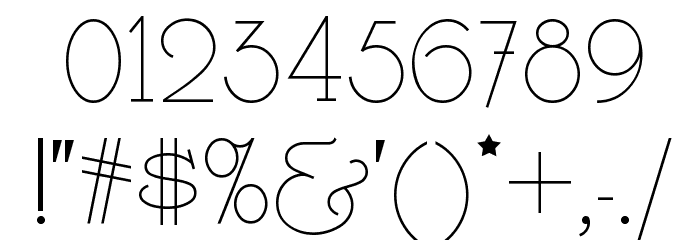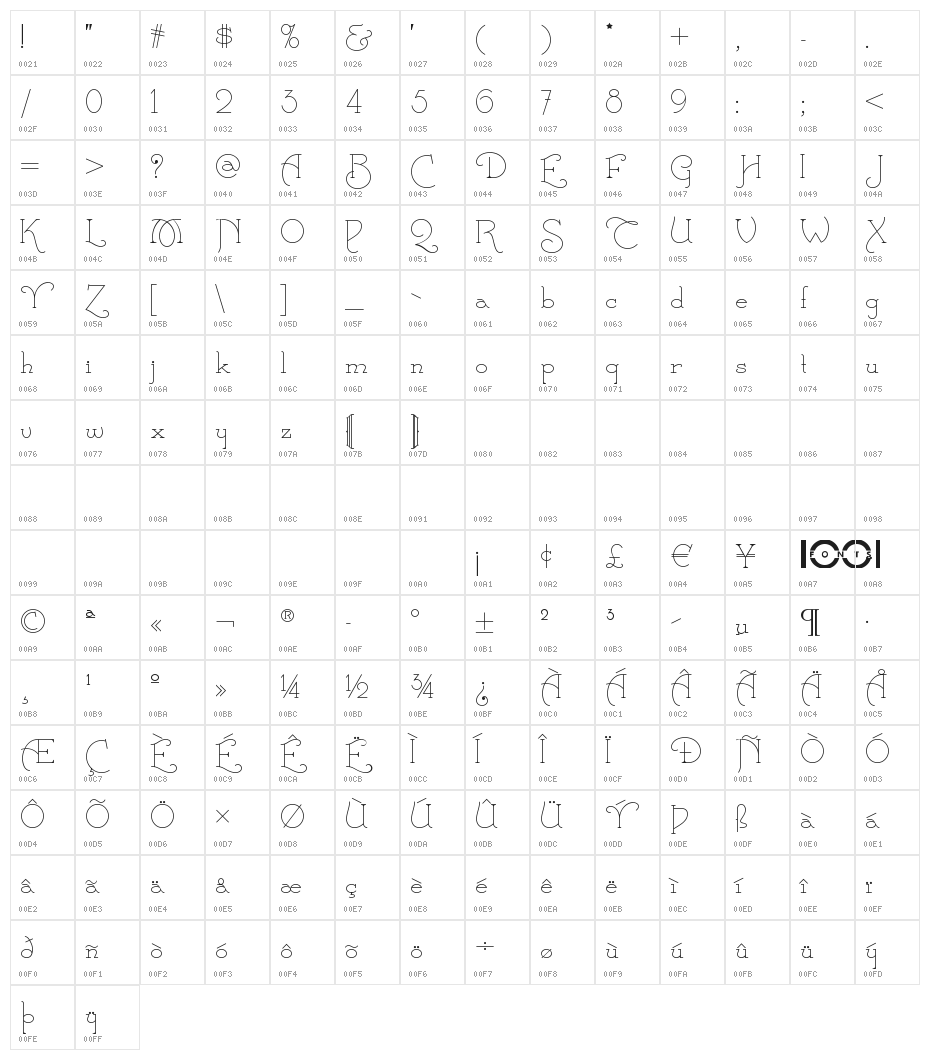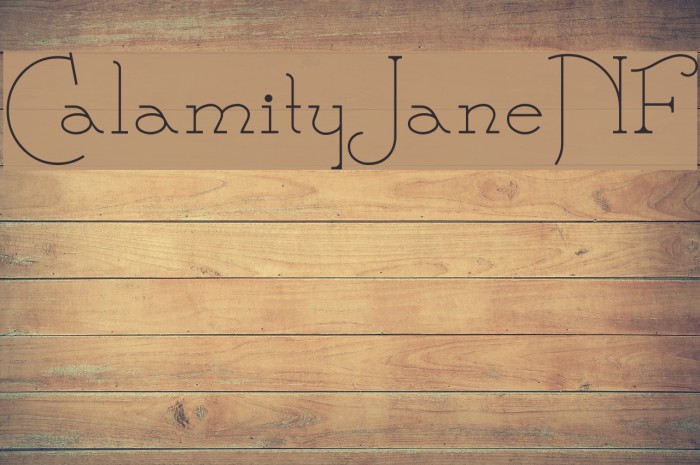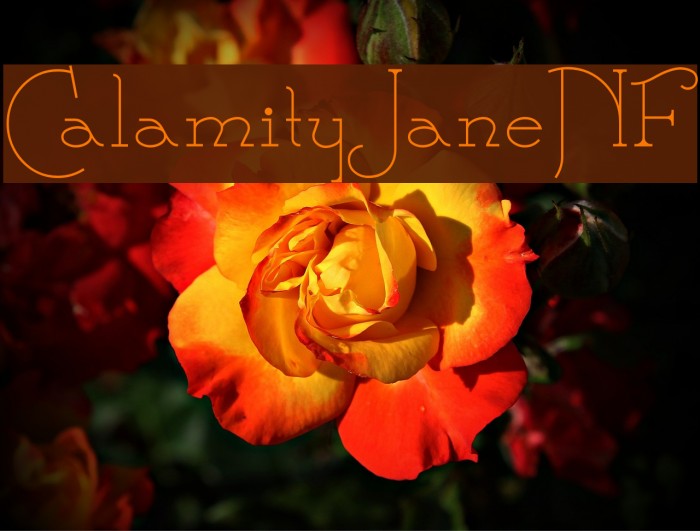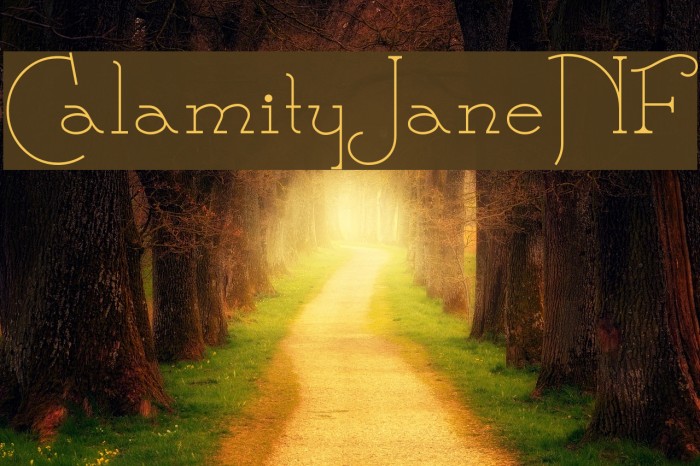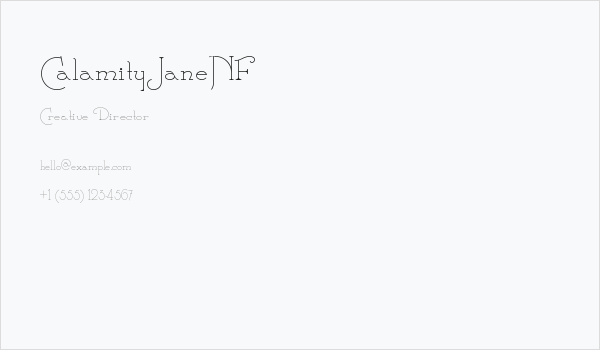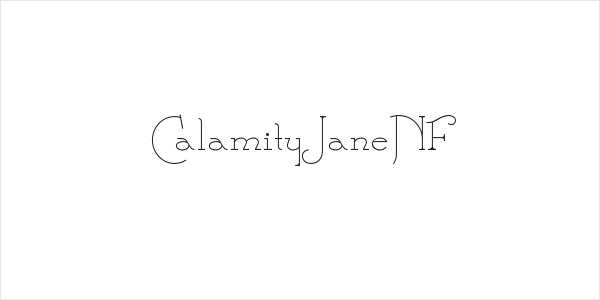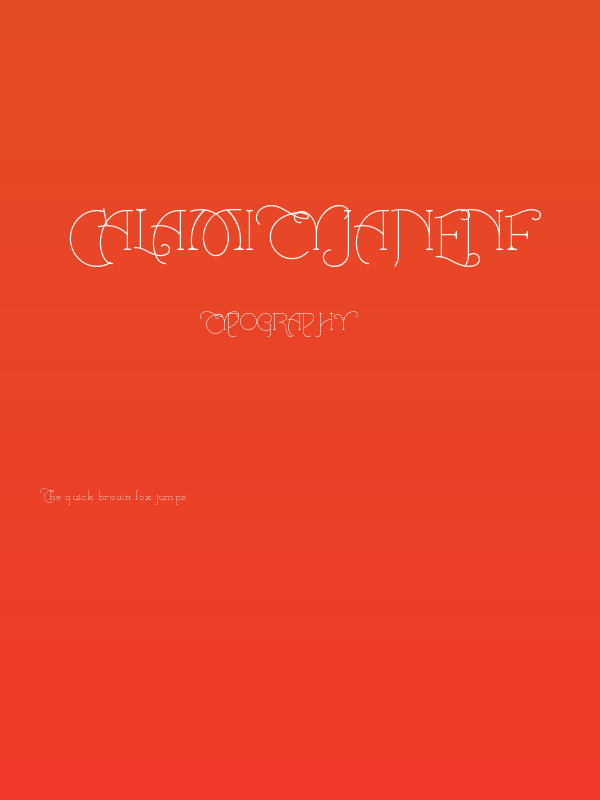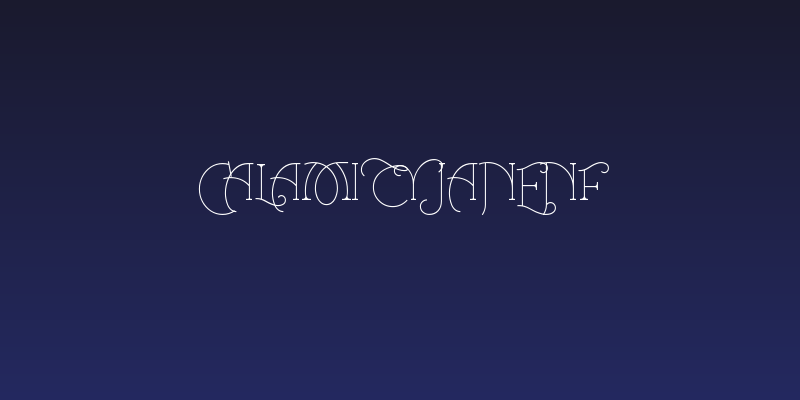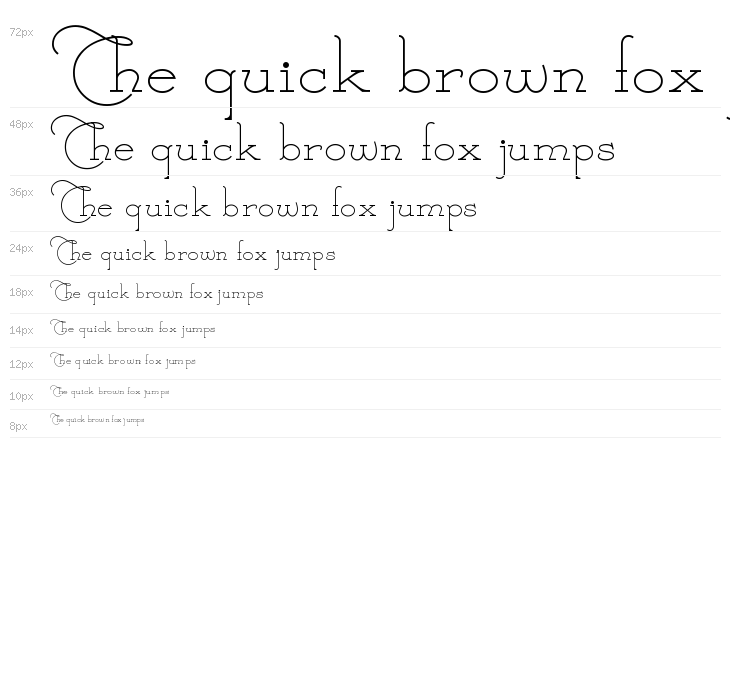
CalamityJaneNF Font
CalamityJaneNF Description
This font features an elegant and whimsical design, characterized by its thin, flowing lines and decorative flourishes. The uppercase letters exhibit a unique blend of curves and straight lines, creating a sense of movement and grace. The lowercase letters maintain a consistent style, with subtle variations that add to the font's charm. Numbers and special characters are crafted with the same attention to detail, ensuring a cohesive look across all elements. The overall appearance is both sophisticated and playful, making it suitable for a variety of creative applications.